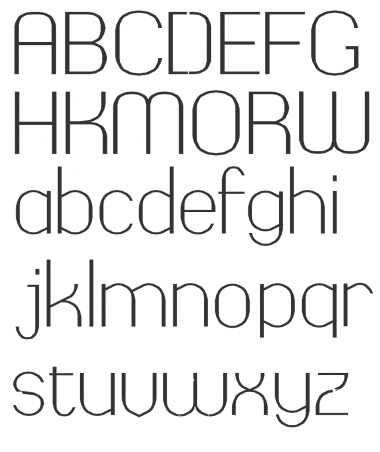
I thought I had worked out the optimal relationships to get these curves looking good. Turns out... no! It's been a long time since I did anything on a huge scale and now I remember why -- what a pain. I probably could get smoother curves if I had the technical chops, but for better or worse I don't have a mathematical brain at all.
As for a believable upper case: as can be seen I'm in two minds regards diagonals in the lower case; this will be compounded in any upper case scheme.
Nevertheless I wanted to share this unfinishable thing because I still find the forms pleasing, unresolved though they may be.
Feel free! It would be interesting to see someone else's take on it.
A beautiful beginning - love that 'v'
Unfortunately I have a recurring illness that knocks me out once every month or so for a week. It's tedious, but I'm learning to cope with it. But all the time I've been quizzing myself how I'm going to believably extrapolate a Cap O from what I've already got. So I do intend to get back to it when I have the stamina for it.
I figure I'm going to have to take a screen capture of the lower case o and bring it into InDesign and blow it up, to make sure I get the right proportions.
I had misgivings about the v but seeing how you like it I'll keep it! The x is a problem, though, don't you think? I'm not sold on either options I've come up with.
Re the font: I quite like the original 'x' - the generous curves are in keeping with the other glyphs.
This is doing my head in. How to go about increasing the radius/weight for the cap version. I've also noticed to my dismay I've made a mistake with the placement of some characters on the baseline. That'll serve me for idiotically using the "flip vertical" function without engaging the brain first.
It's a mug's game trying to do this sort of thing. You can only increase the radius of the upper case bowl by so much -- and it rather governs the width of certain letters. It might look regular but it's full of vagaries when you look up close. Oh well.
I have only worked on the lower part of the C.
@intaglio - Nice to see I'm not the only one who uses alternating 5-brick or 10-brick patterns as measuring standards (as in your Dec 30 picture post). :^)
I like where this is going. I was having a similar issue with Azurite—trying to create aesthetically pleasing characters with limited angles. That's the fun of it, though. :)
@Goatmeal: Ha ha! We could do with Mr Meek giving us a few extra guides so we can easily keep track of things like cap height, l/c ascenders and descenders, x-height, bowl overshoots and the like. Preferably a different colour for each. (Now I'm being just silly.)
@sarreyn: ain't that the truth. After creating a roughly-spaced-out u/c O I spent a whole week trying to work up the courage to tackle the issue of increased radius. As you say, them limited angles. There are possibly more composite permutations than I've been able to discover; I've not been particularly methodical about investigating them. It's like searching for the lost chord: I still find myself trying to re-invent the wheel. "Ah, I know! If I combine those bricks into this composite... nah, you've already tried that, sunshine."
I'm reminded of the early days of imageset typesetting. Glyphs bigger than 72pt revealed the same, ropey combinations of angles to approximate curves. More sophisticated because mathematically derived and optimised, but the same process. Now I'm really showing my age.